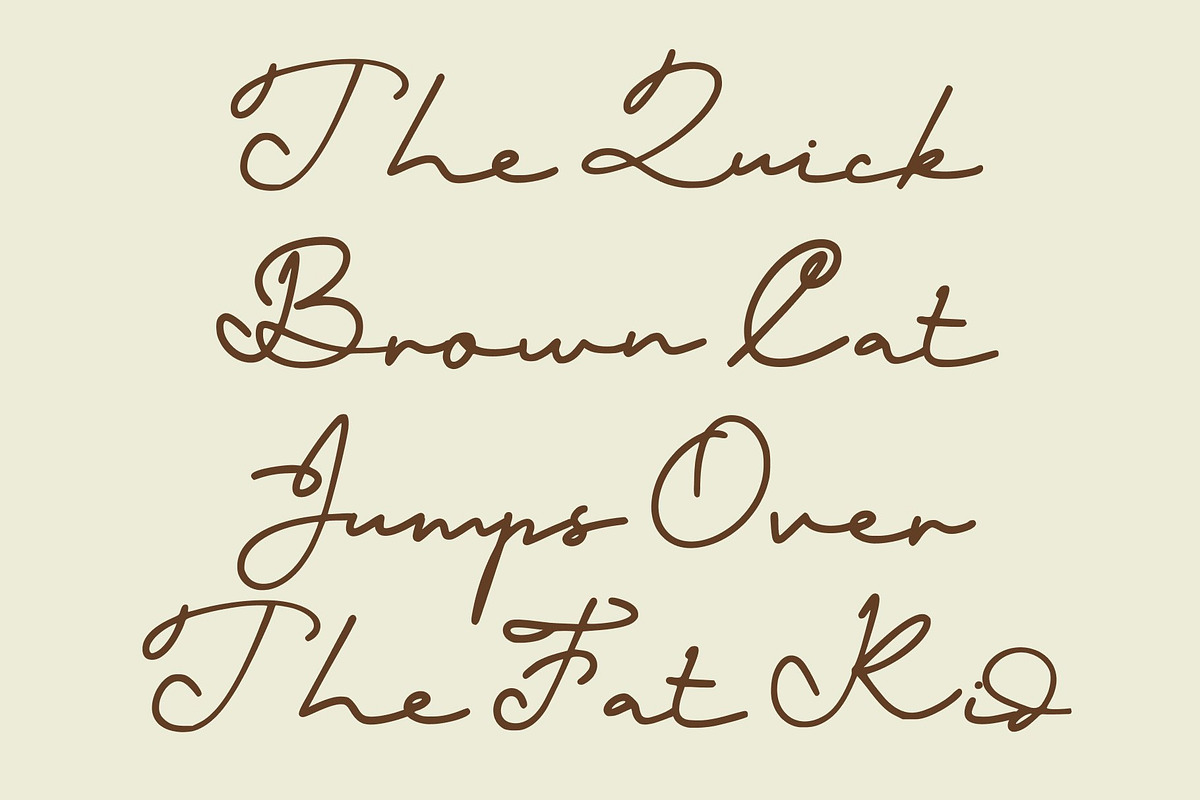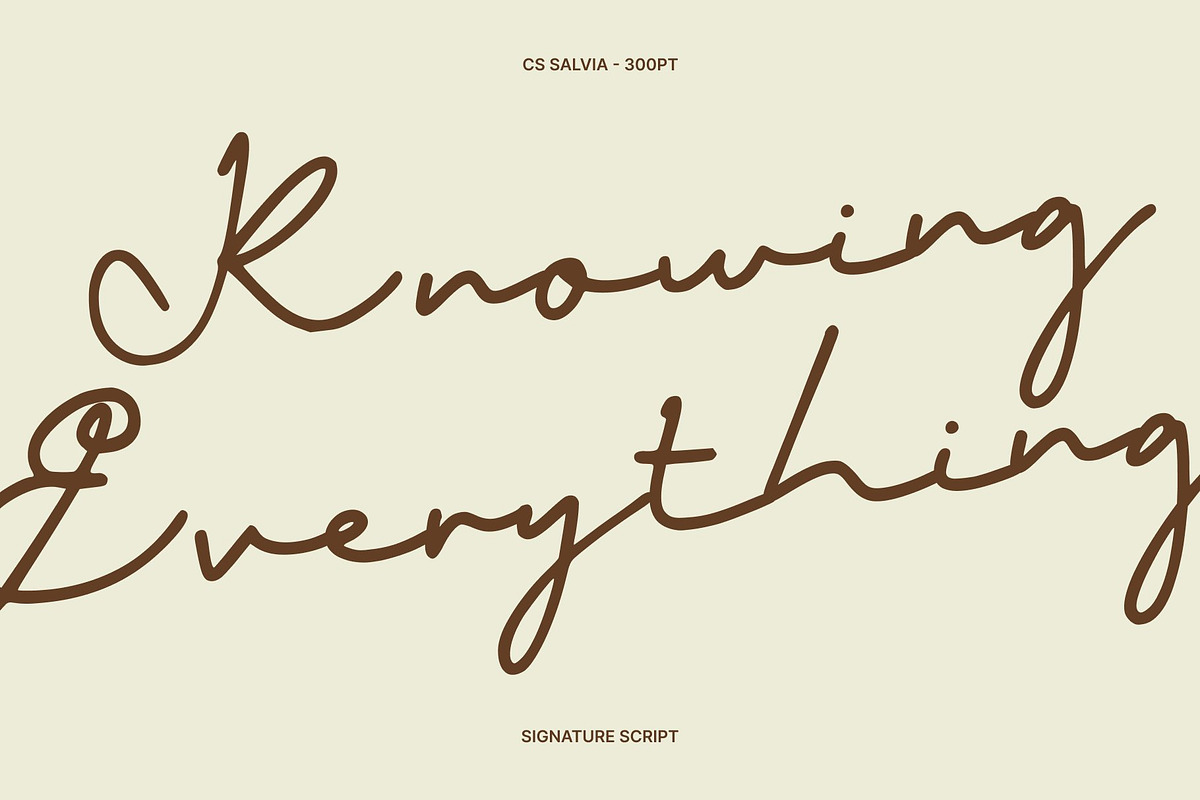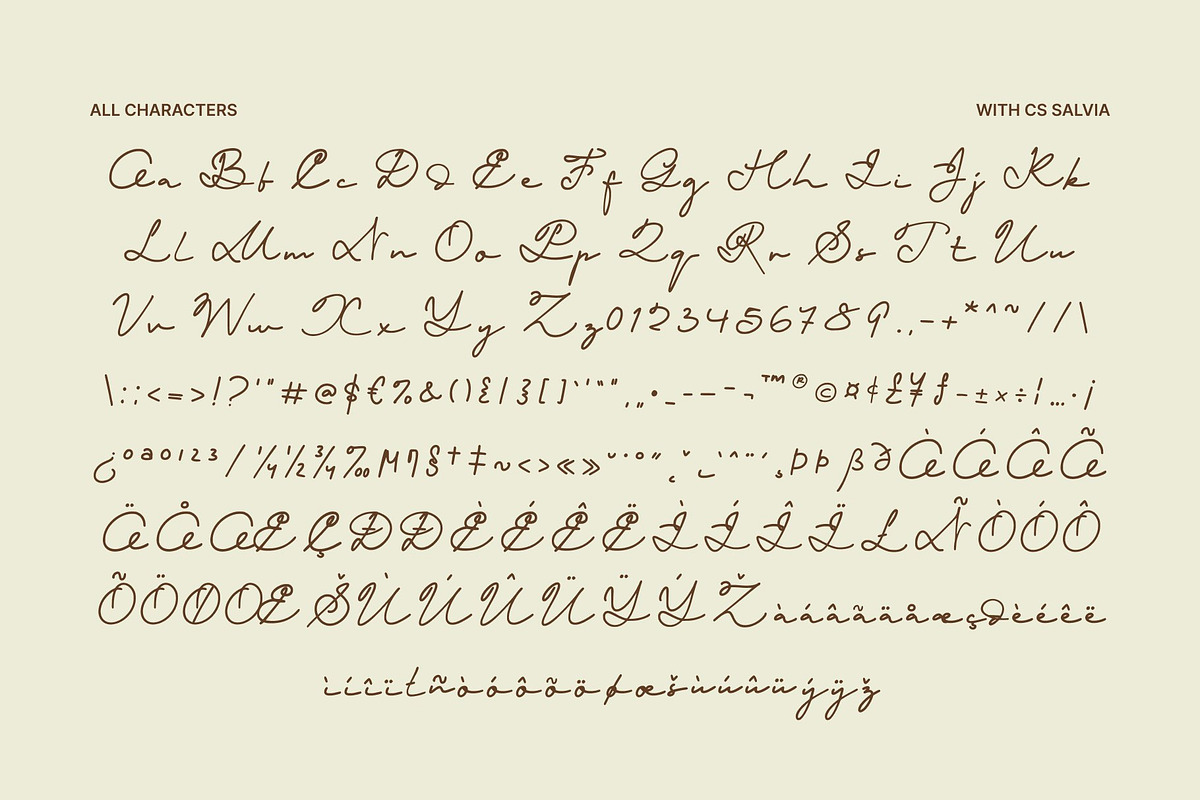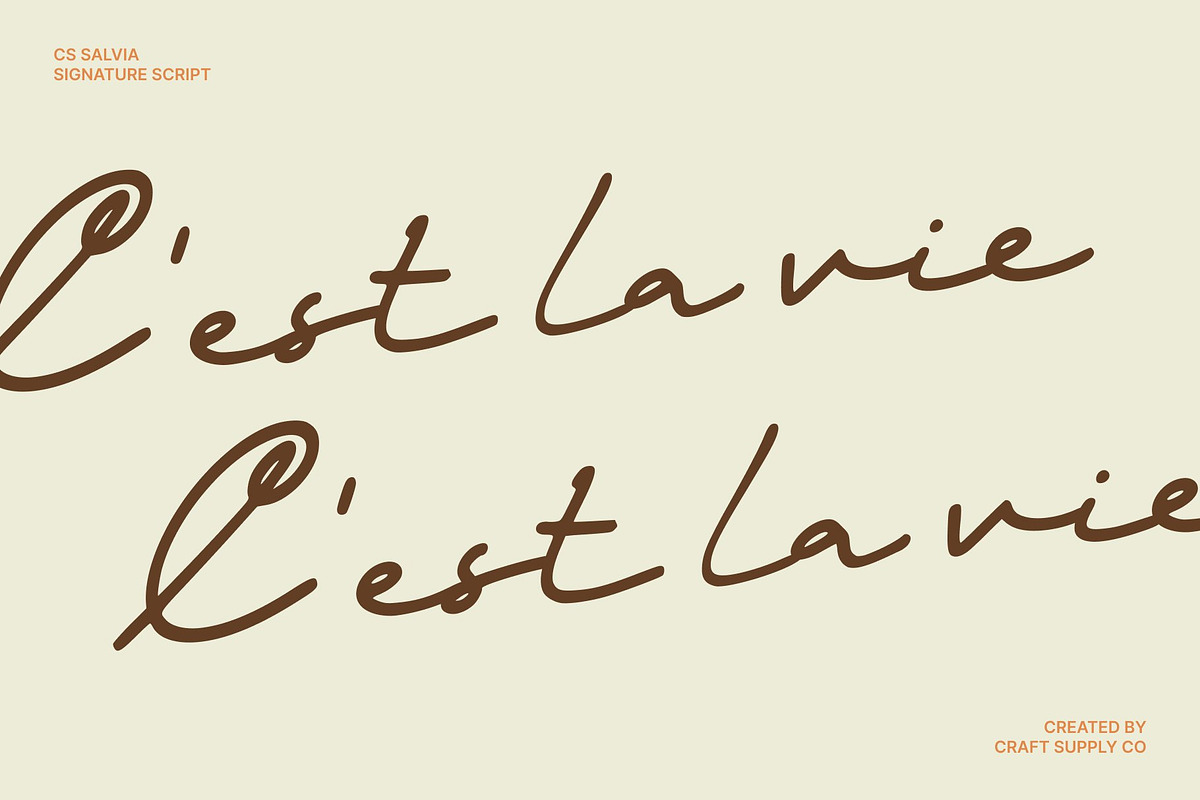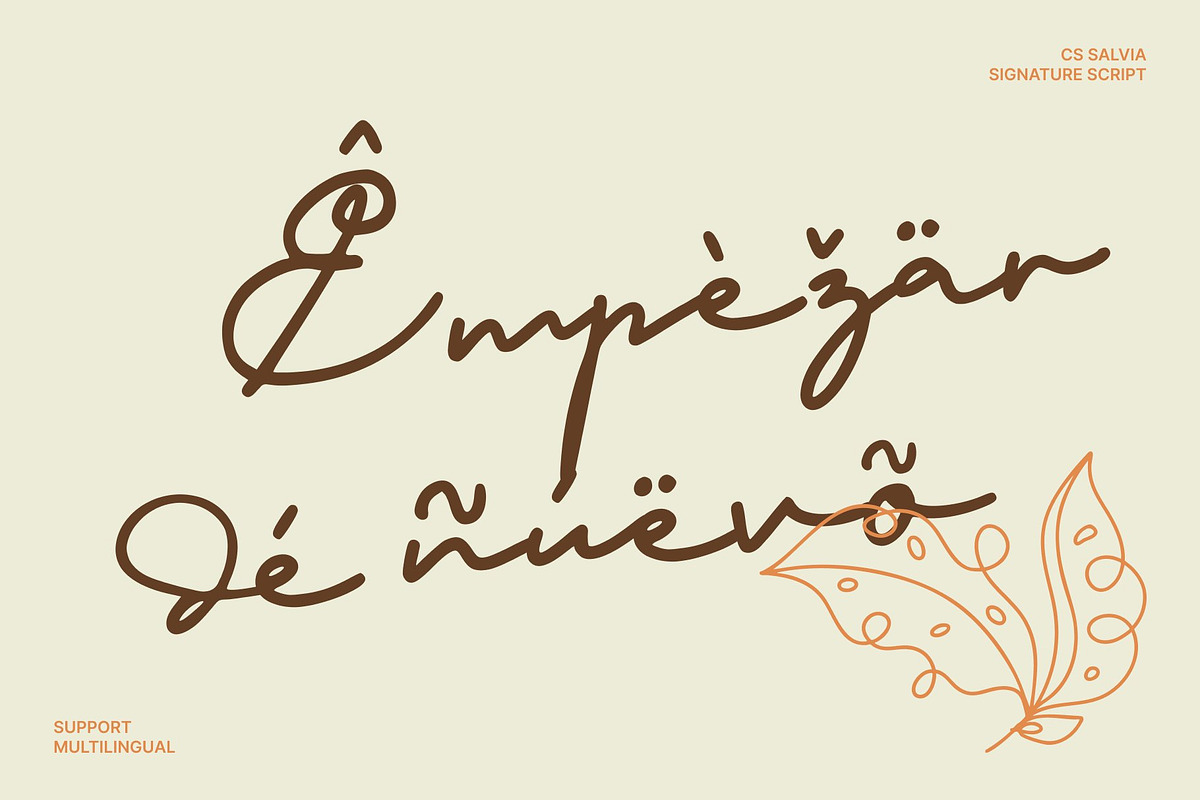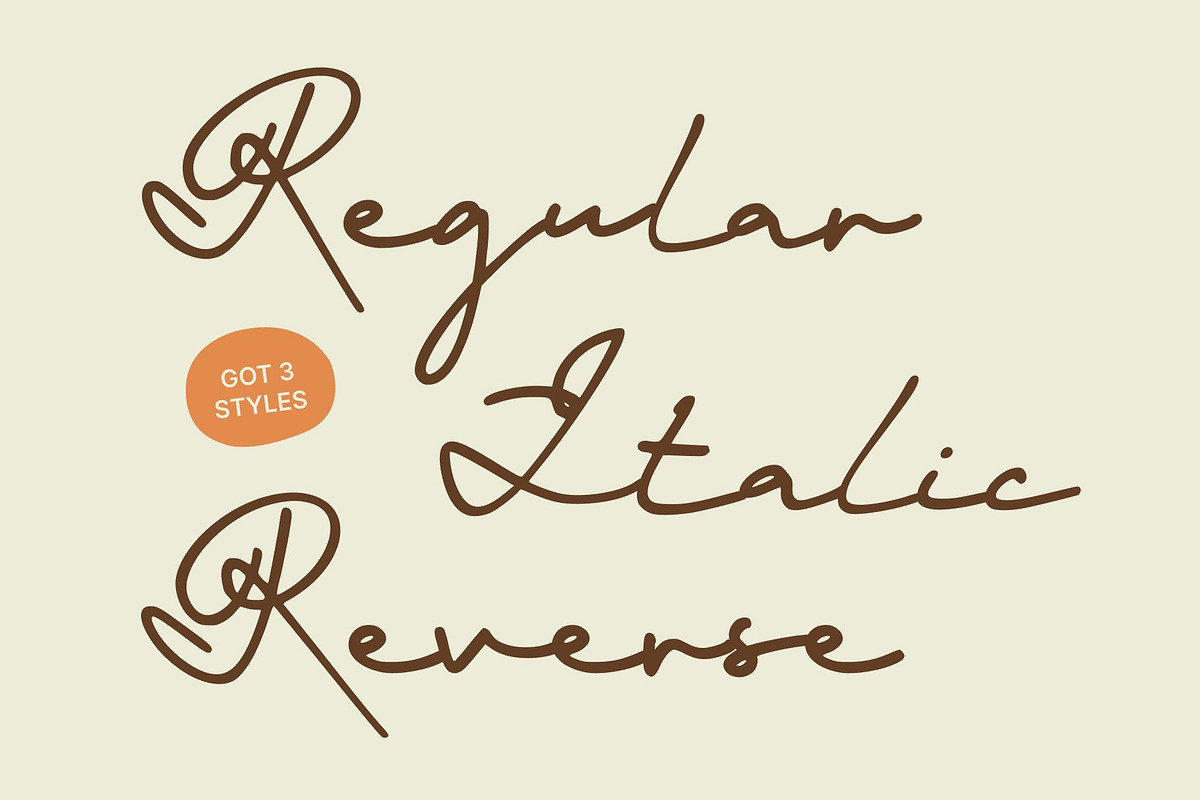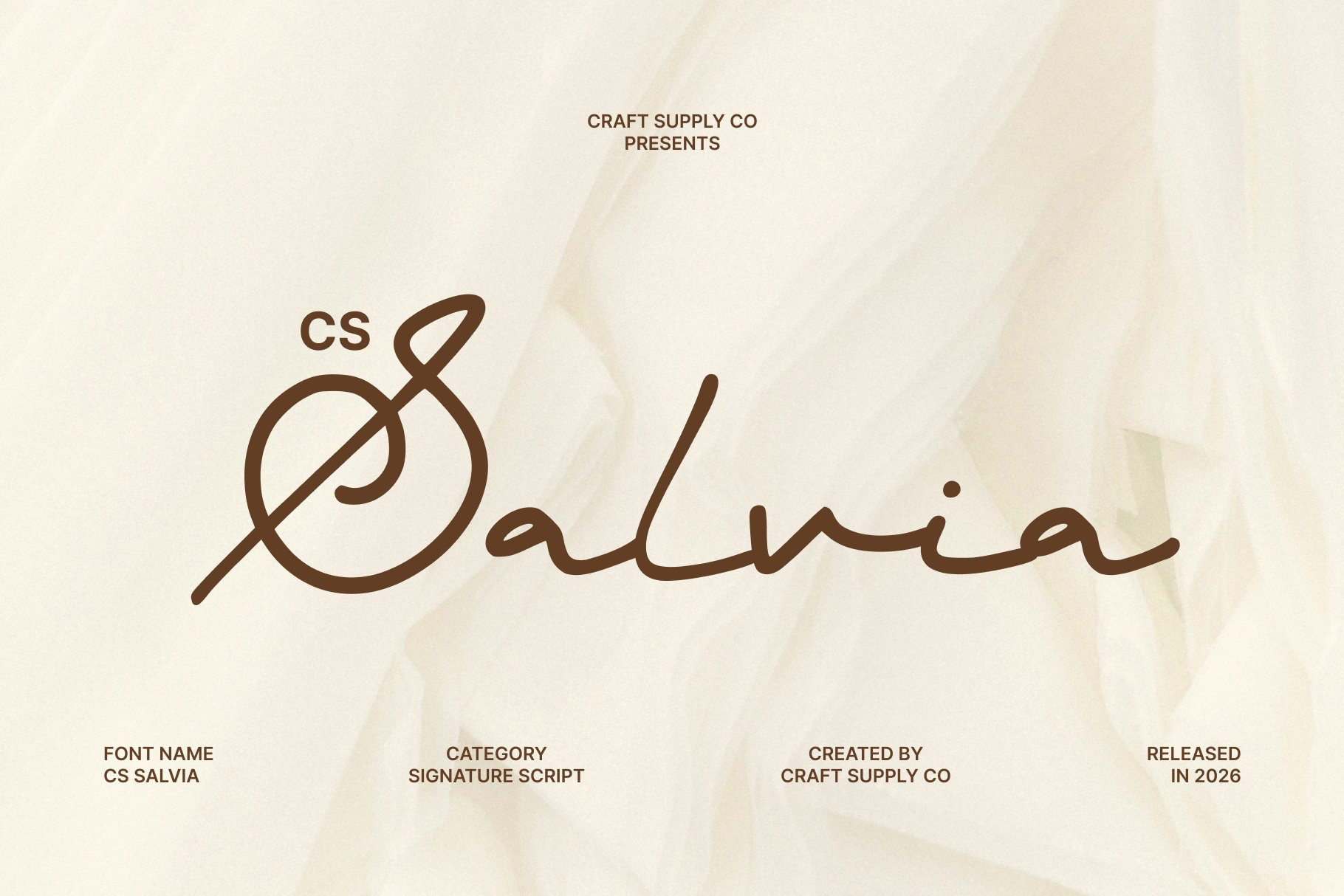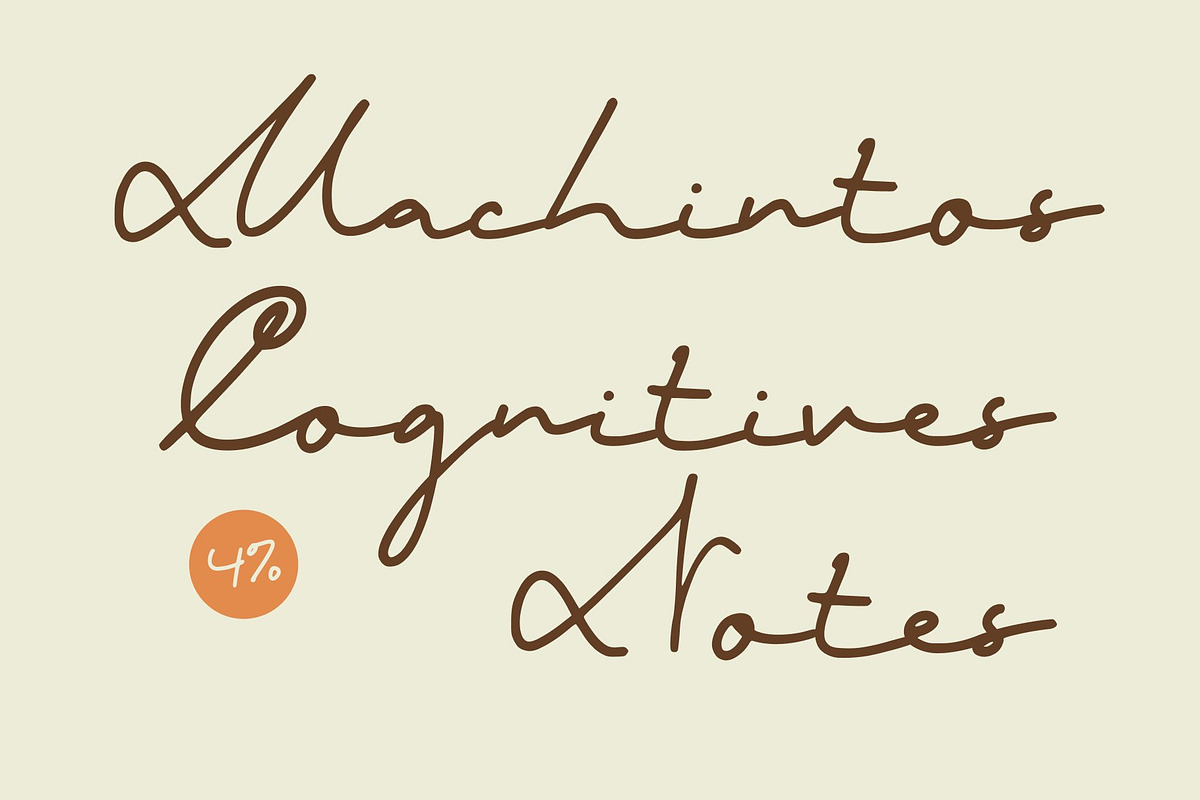
CS Salvia – Signature Font
CS Salvia – Classic Signature Elegance with Personal Character
Signature Script Font with Handwritten Authenticity This is a signature script font designed to capture the personal and unique character of handwritten signatures with a timeless, classic vibe. Inspired by natural pen movement and traditional handwriting, this font delivers an authentic and refined script style that feels elegant, intimate, and distinctive. Its flowing strokes create a sense of individuality, making every word feel personal and thoughtfully crafted.
Natural Flow with Classic Appeal The letterforms of this font feature smooth connections and organic stroke variations that closely resemble real signature writing. Each character moves effortlessly, creating a graceful rhythm that reflects confidence and sophistication. The classic influence gives the font a timeless quality, allowing it to feel luxurious and enduring rather than trendy or fleeting.
Elegant Expression for Premium Design This font balances softness and structure to achieve an elegant expression suited for high-end visuals. Its handwritten form communicates warmth and professionalism at the same time, making it ideal for designs that require authenticity with a touch of luxury. The font works beautifully as a focal element, adding refinement and personality to premium compositions.
Ideal for Logos, Branding, and Luxury Invitations Designed for upscale and personal applications, this font is ideal for logos, branding, luxury invitations, packaging, and fashion or beauty-related projects. Its signature-inspired style makes it especially suitable for personal brands, boutique businesses, weddings, and exclusive events.